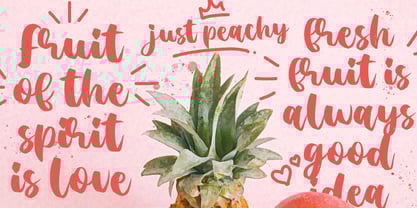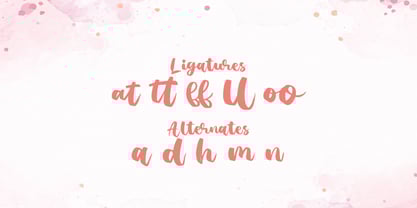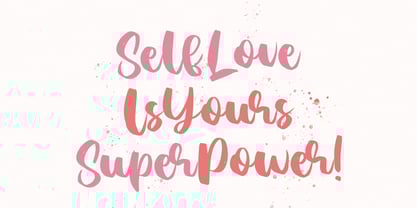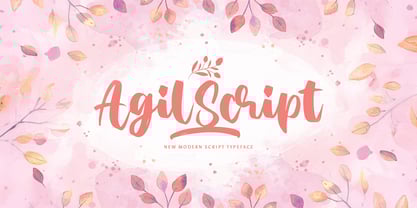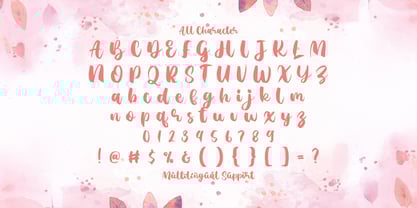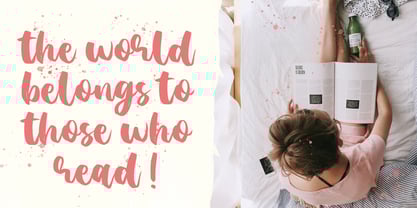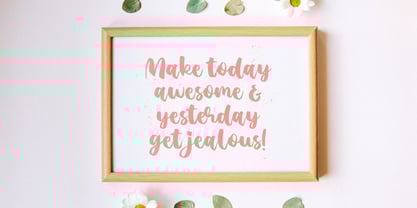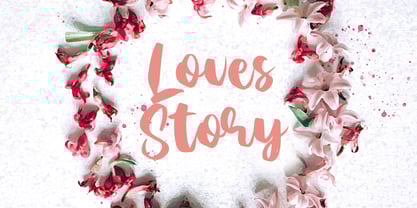
The Agil Script Font Family was designed by Virgiawan Listanto and published by Stringlabs Creative Studio. Agil Script contains 1 styles. More about this family
Agil Script is a smooth handwritten font that combines modern elegance with a relaxed, personal touch. With flowing strokes and natural rhythm, this font feels both stylish and approachable perfect for adding a handwritten charm to your creative projects.
Designers: Virgiawan Listanto
Foundry: Stringlabs Creative Studio
Agil Script